Oldstyle Figures
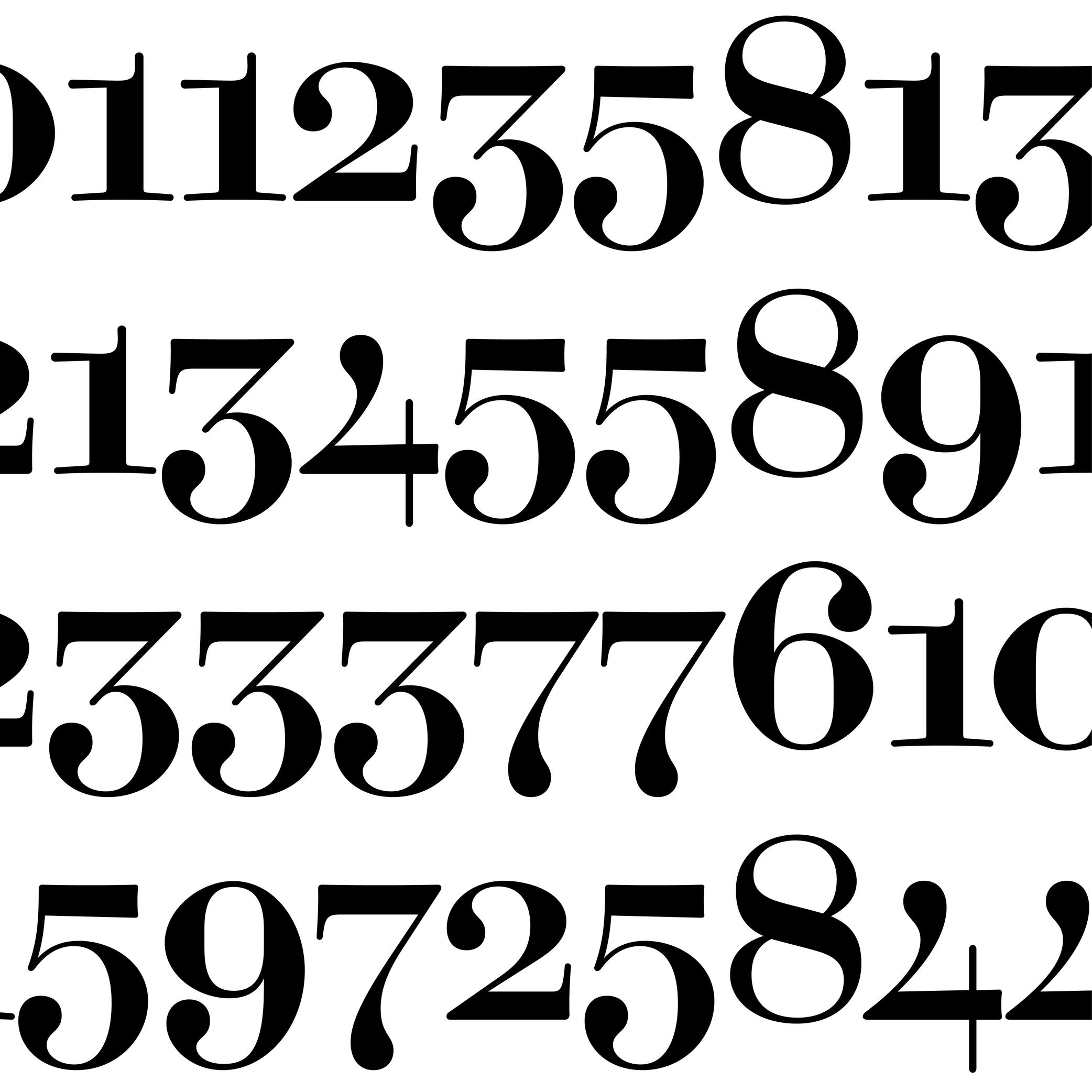
Oldstyle figures are designed to fit with the design of lowercase characters. They are more often used in texts as they visually blend in better than the other figure variants.
The proportions of oldstyle figures are closely related to how they were written in calligraphy using similar strokes and movements as those of the (lowercase) letters.
“Oldstyle” used to have a typographic meaning of its own. It was a 19th century/early 20th century term for revivals of Renaissance serif faces after British printers got bored of Bodoni/Didot/Scotch/etc., and particularly referred to revivals of types those from Venice, Paris, and Caslon’s much later roman. Some typefaces had “Old Style” in their name to signify this.
Oldstyle figures are also called “traditional” figures in some languages, as more modern styles came later on (hence the name identification) as better adapted forms to specific situations: tabular, lining or proportional figures. In digital typefaces, several style sets of figures are available and can be accessed via the alternate sets.
OPENTYPE FEATURE NAME
OLDSTYLE FIGURES: .onum